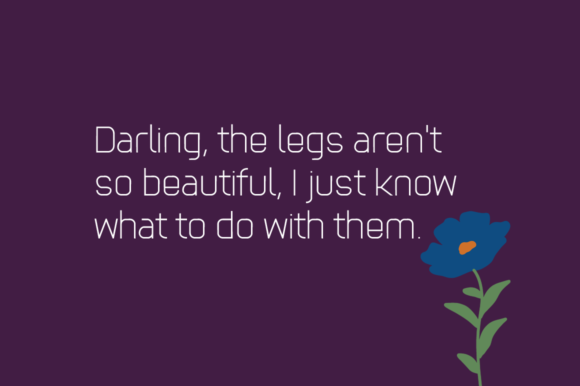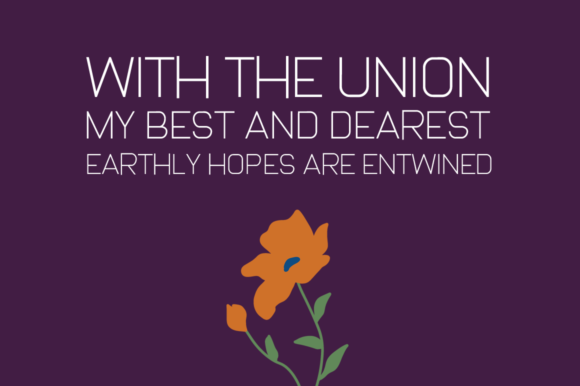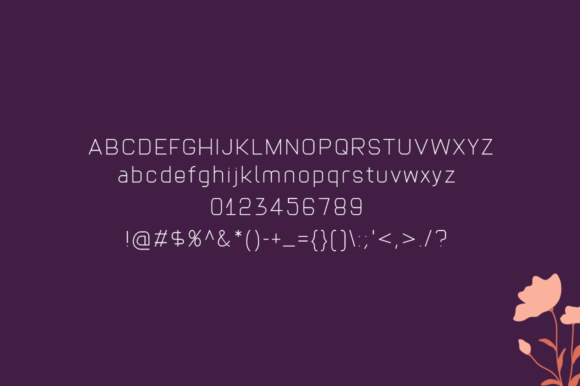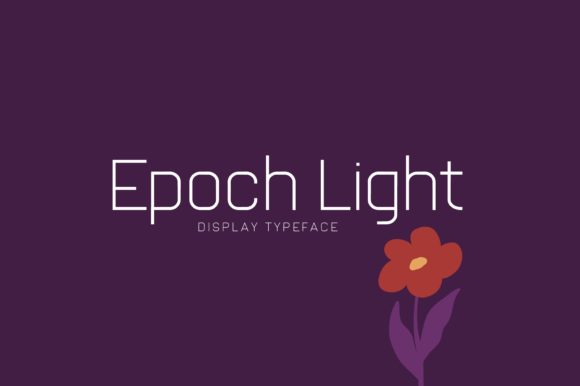
Introducing Epoch Light Font: The Cute Display Font for Stunning Headlines and Texts
Are you a designer or crafter looking for a font that can elevate your visual projects to the next level? Look no further than Epoch Light Font, a charming display font that’s perfect for creating stunning headlines and blocks of text. In this article, we’ll dive into the features and benefits of Epoch Light, and explore how it can be used to enhance your designs.
What is Epoch Light Font?
Epoch Light is a cute display font that’s designed to make a statement. With its unique and playful style, this font is ideal for headlines of all sizes, as well as for blocks of text that require maximum and minimum variations. Whether you’re working on a web project, print material, or moving images, Epoch Light is the perfect choice.
Key Features of Epoch Light Font
- Versatility: Epoch Light is a highly versatile font that can be used for a wide range of design projects, from web and print to moving images and more.
- Cute and Playful Style: This font features a unique and charming style that’s sure to capture the attention of your audience.
- High Legibility: Epoch Light is designed to be highly legible, making it perfect for use in headlines and blocks of text.
- Maximum and Minimum Variations: This font is suitable for use in texts with varying font sizes, making it ideal for creating visual interest and hierarchy.
Benefits of Using Epoch Light Font
So why choose Epoch Light Font for your design projects? Here are just a few benefits of using this fantastic font:
- Instant Visual Appeal: Epoch Light’s cute and playful style is sure to grab the attention of your audience and add visual interest to your designs.
- Improved Readability: With its high legibility and clear letterforms, Epoch Light makes it easy for readers to quickly scan and understand your text.
- Flexibility: This font can be used in a wide range of design projects, from web and print to moving images and more.
- Unique Style: Epoch Light’s unique style sets it apart from other fonts, making it perfect for designers and crafters who want to add a personal touch to their designs.
How to Use Epoch Light Font in Your Designs
So how can you use Epoch Light Font in your designs? Here are a few ideas to get you started:
- Headlines and Titles: Use Epoch Light to create stunning headlines and titles that grab the attention of your audience.
- Web Design: This font is perfect for use in web design, from website headers and titles to blog posts and more.
- Print Materials: Epoch Light can be used in a wide range of print materials, from brochures and flyers to posters and more.
- Moving Images: This font is also suitable for use in moving images, such as video titles, subtitles, and more.
In conclusion, Epoch Light Font is a fantastic display font that’s perfect for designers and crafters looking to add a personal touch to their designs. With its cute and playful style, high legibility, and versatility, this font is sure to elevate your visual projects to the next level. Whether you’re working on a web project, print material, or moving images, Epoch Light is the perfect choice.